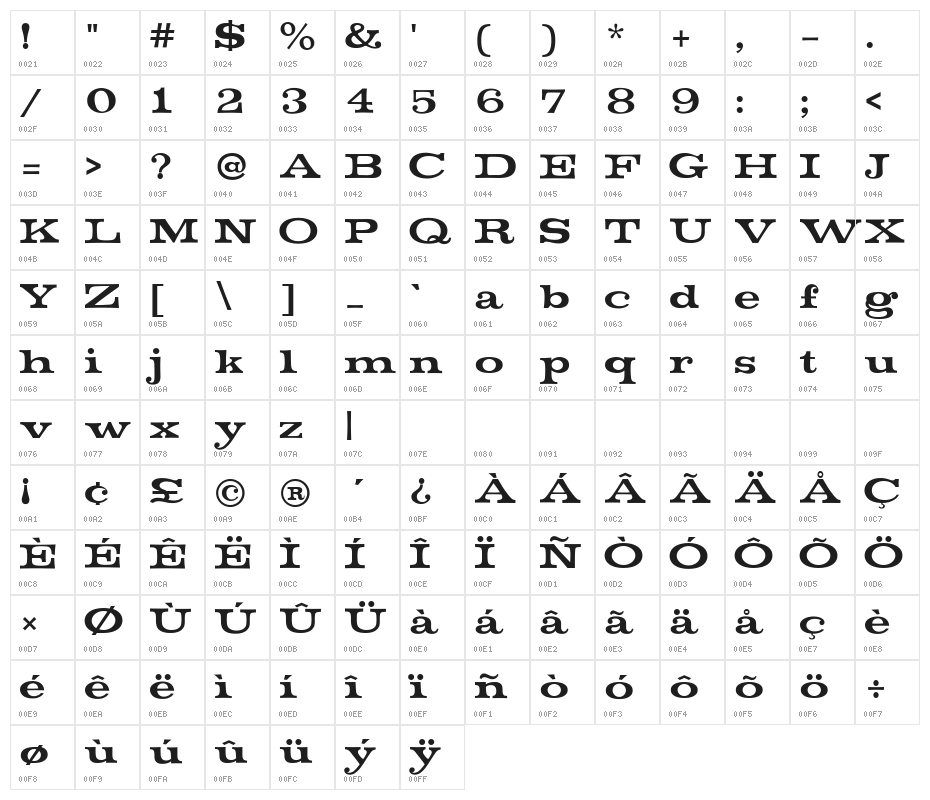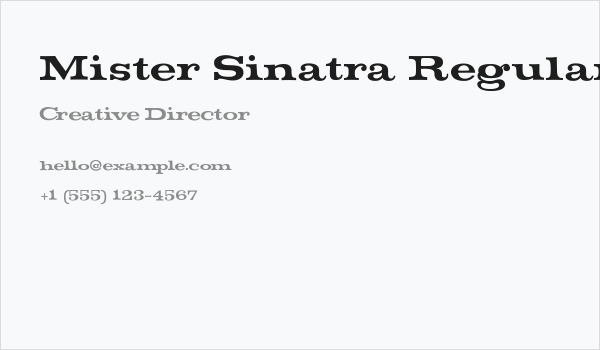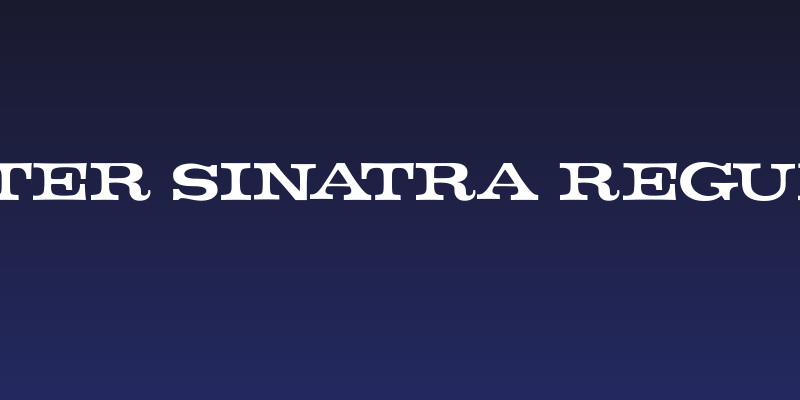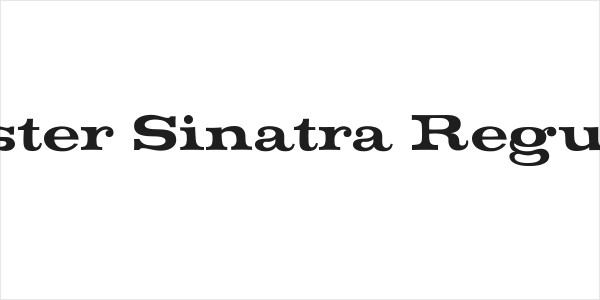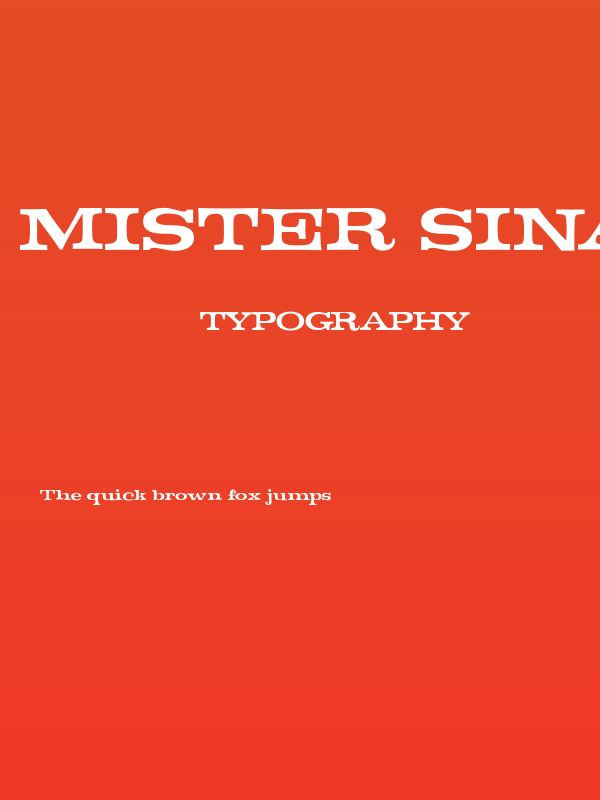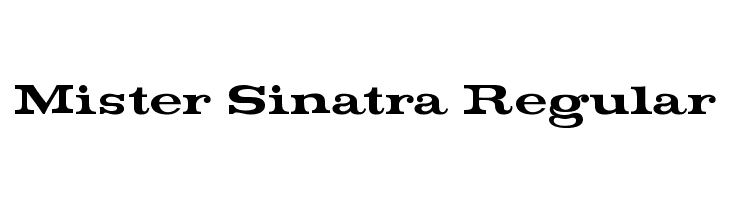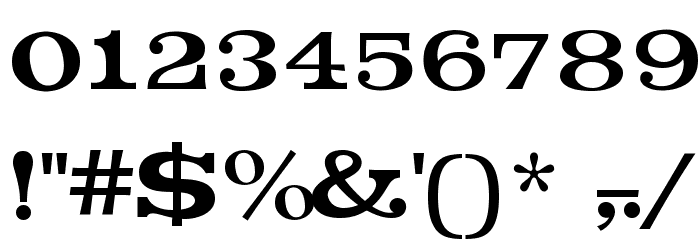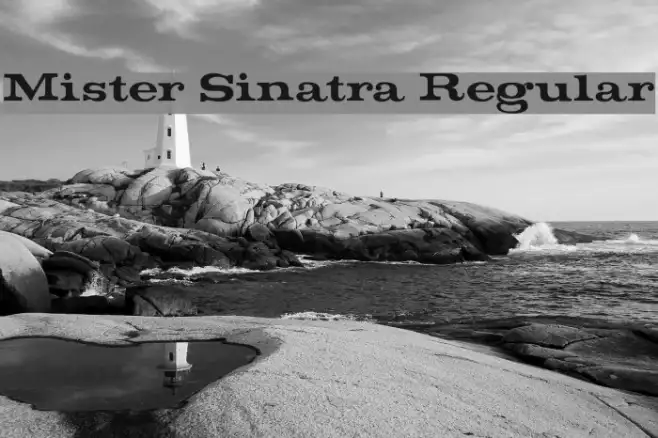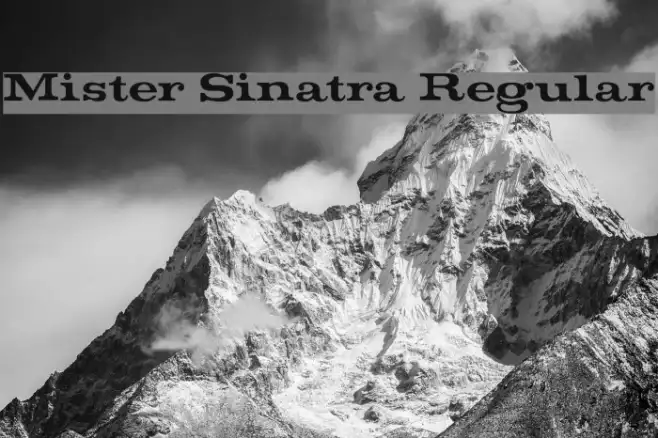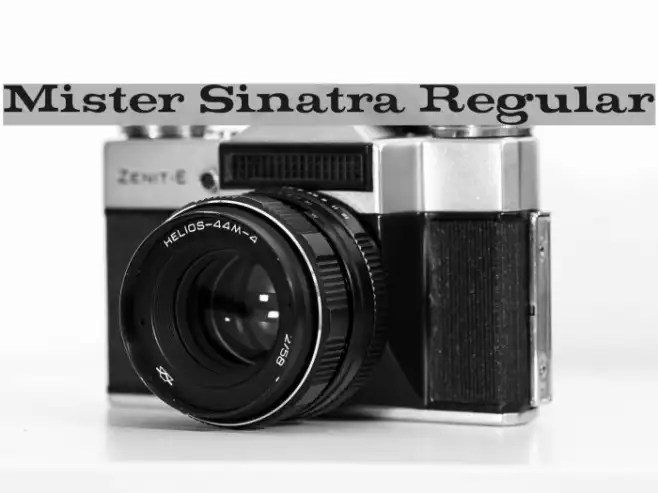
Mister Sinatra Regular Font
Mister Sinatra Regular Description
This font exhibits a bold and confident style with a strong presence. The characters are designed with thick strokes and pronounced serifs, giving it a classic and authoritative look. The uppercase letters are particularly striking, with a uniform height and width that convey stability and strength. The lowercase letters maintain a consistent style, with rounded edges that add a touch of elegance. The numerals are clear and easily readable, making them suitable for various applications. Special characters are well-integrated, maintaining the overall aesthetic of the font. This typeface is versatile, suitable for both digital and print media, and can be used to create impactful headlines or logos.